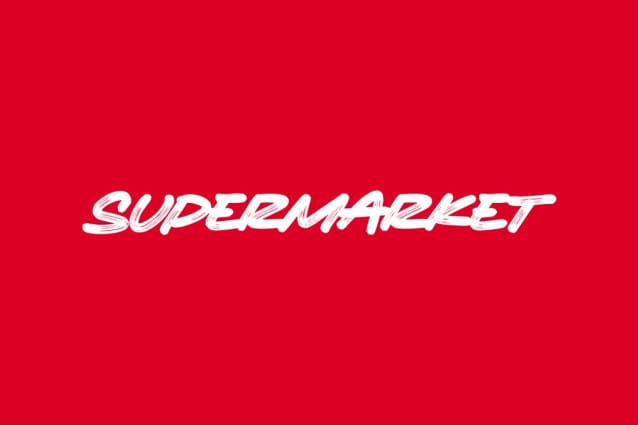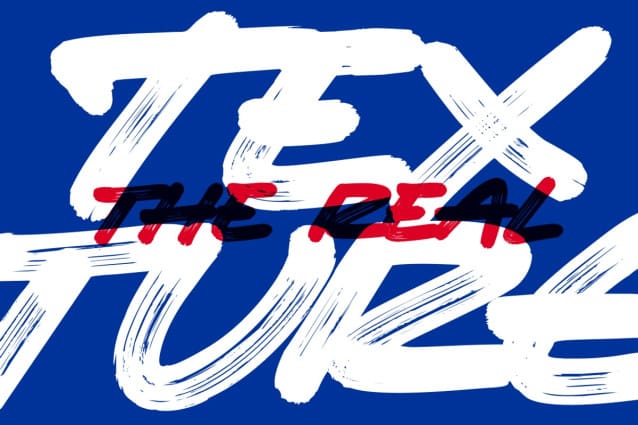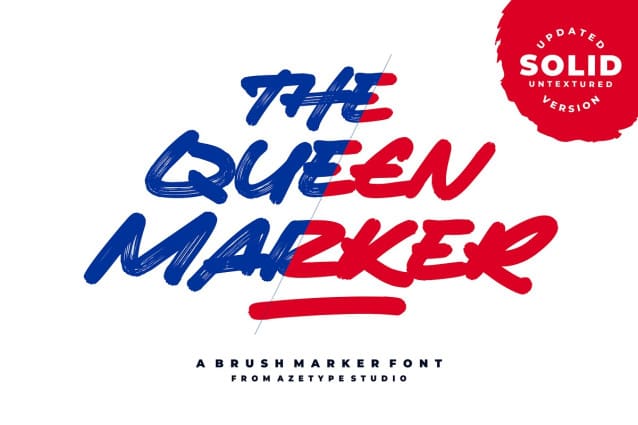
The Queen Marker Font
The Queen Marker! A Brush Marker Font with a stylistic alternate. This font is made with the perfect combination of each character. You can type by Mix & Match to get a unique combining. It looks original and can be used for all your project needs. Each glyph has its own uniqueness and when meeting with others will provide dynamic and pleasing proximity. This font can be used at any time and on any project. You can see in the presentation picture above, The Queen Marker looks stunning on design projects.
So, The Queen Marker can’t wait to give its touch to all your design projects such as quotes, poster design, personal branding, promotional materials, logotype, product packaging, etc.